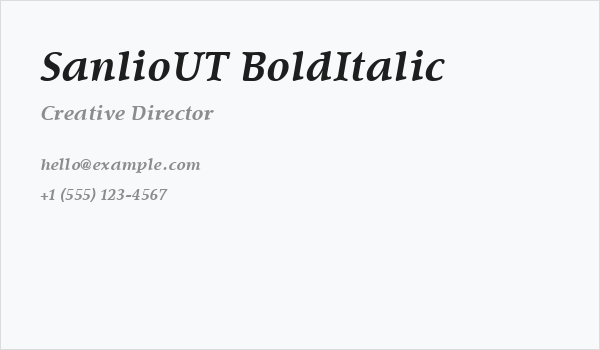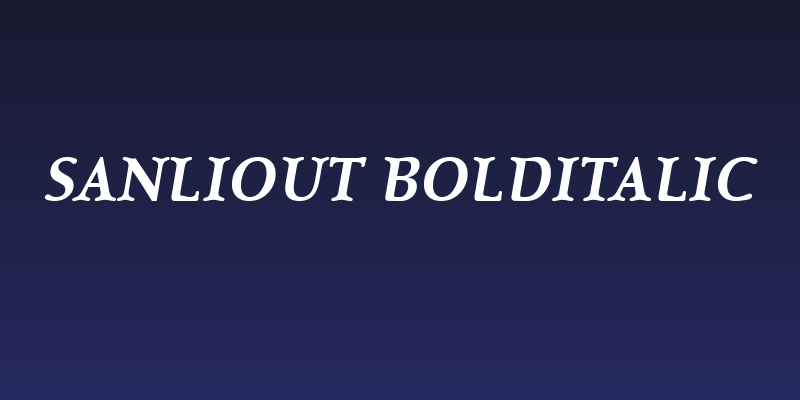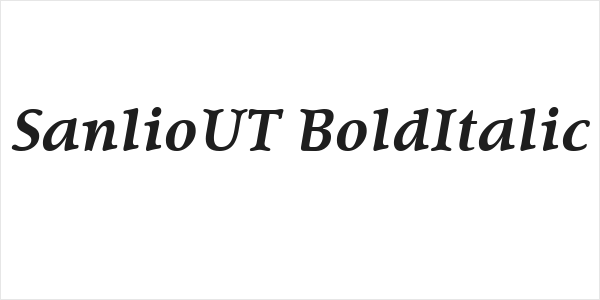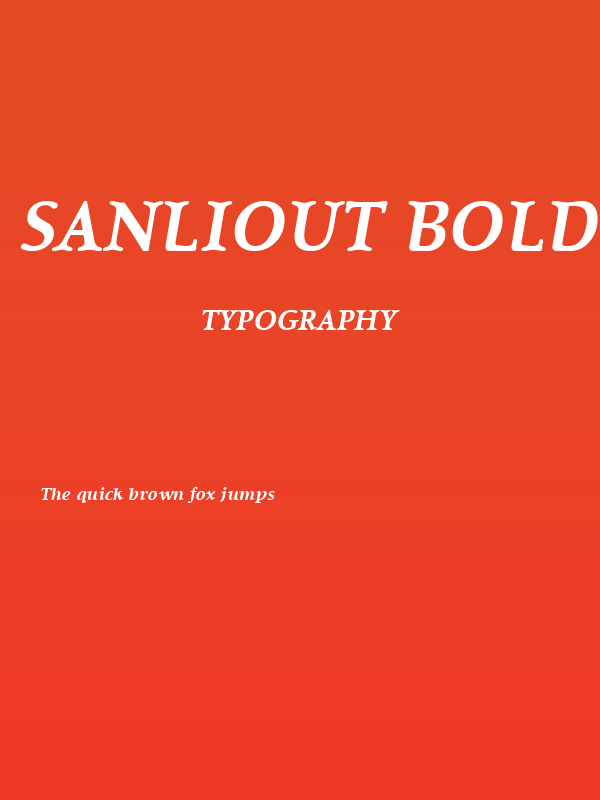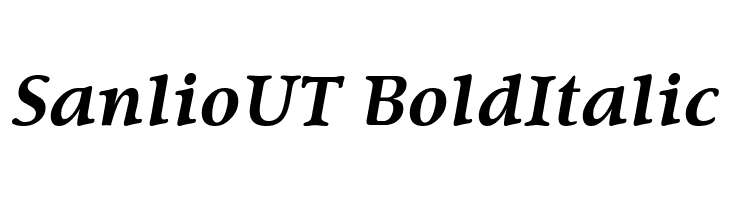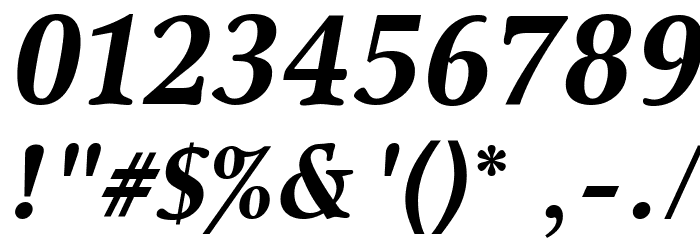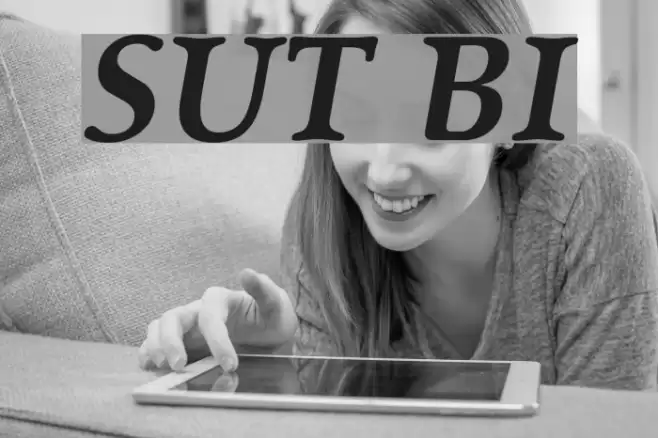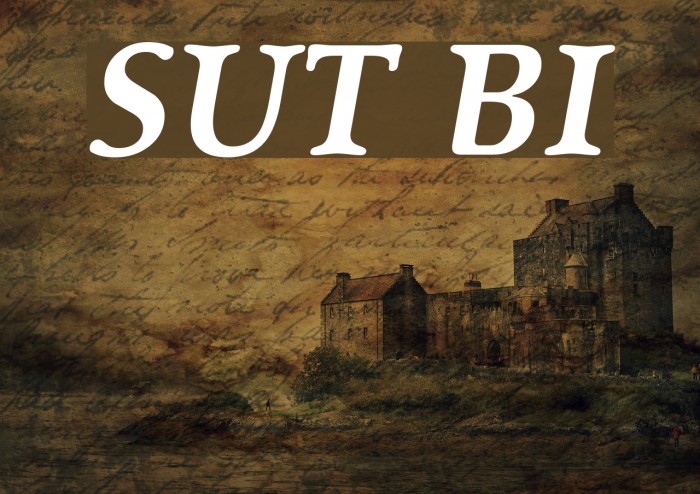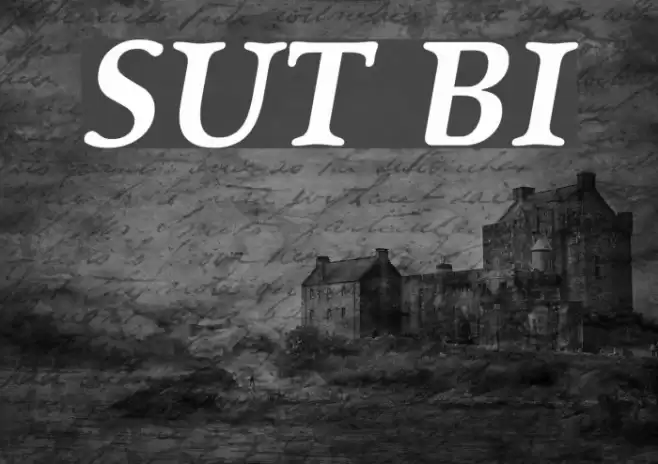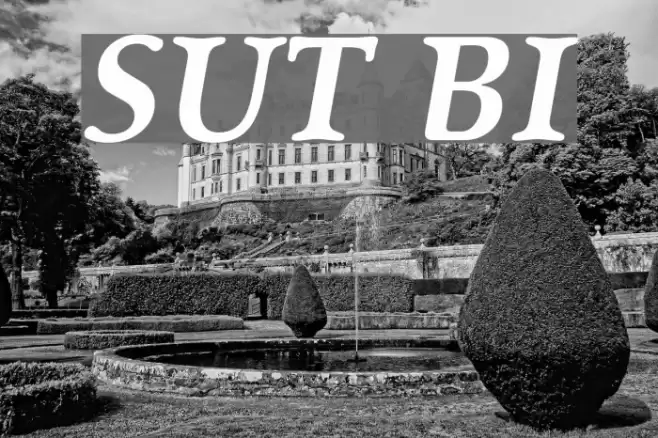
SanlioUT BoldItalic Font
SanlioUT BoldItalic Description
This font features a bold and italicized style, characterized by its strong presence and dynamic slant. The uppercase letters are robust and commanding, while the lowercase letters maintain a consistent flow, enhancing readability. The numerals are clear and well-defined, matching the overall boldness of the typeface. Special characters are distinct and integrate seamlessly with the rest of the font, making it versatile for various uses. The italic nature adds a sense of movement and elegance, suitable for both formal and creative applications.
| Use Case | Headlines, Logos, Branding |
| Proposed Projects | Ideal for branding, headlines, posters, and any project requiring a bold, elegant touch. |